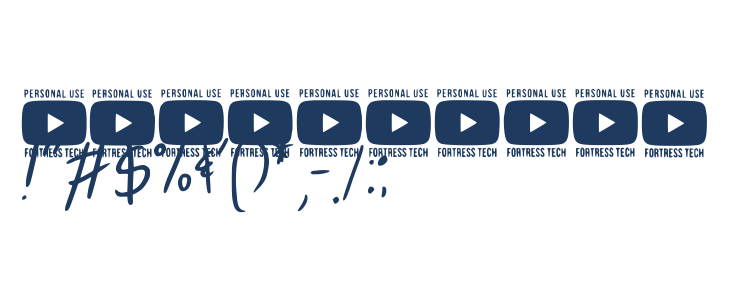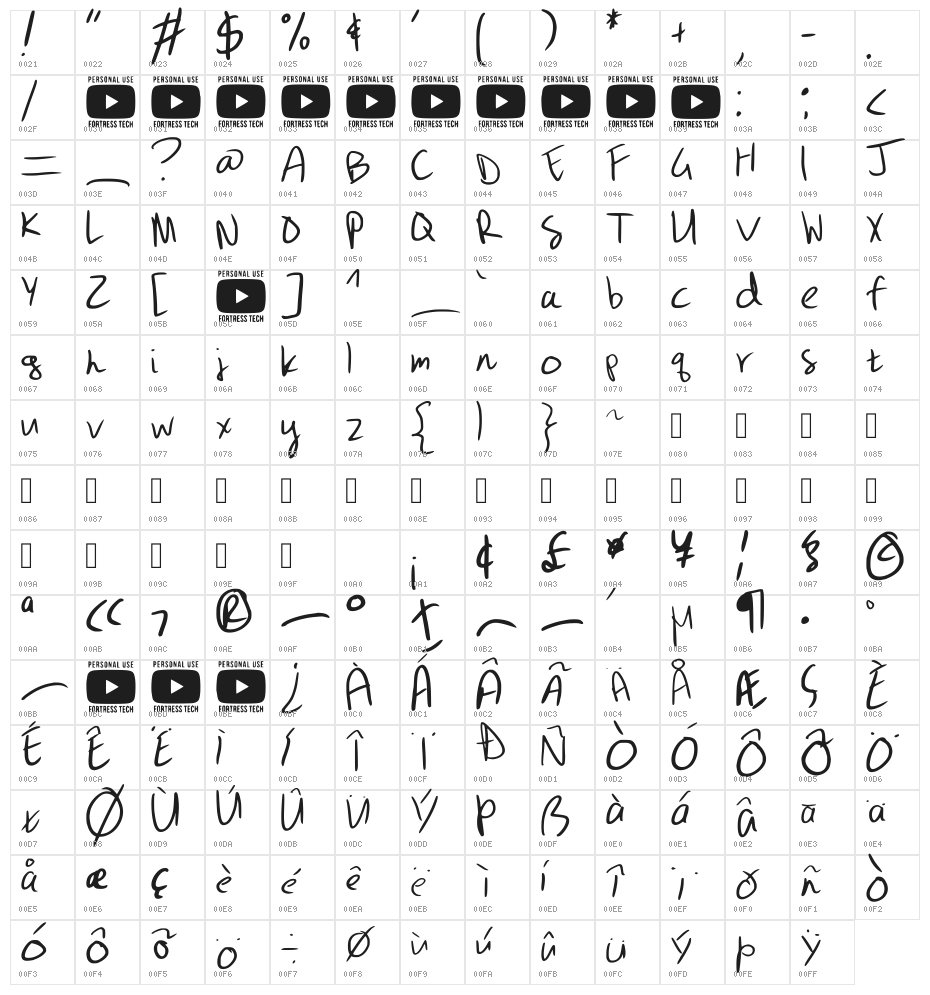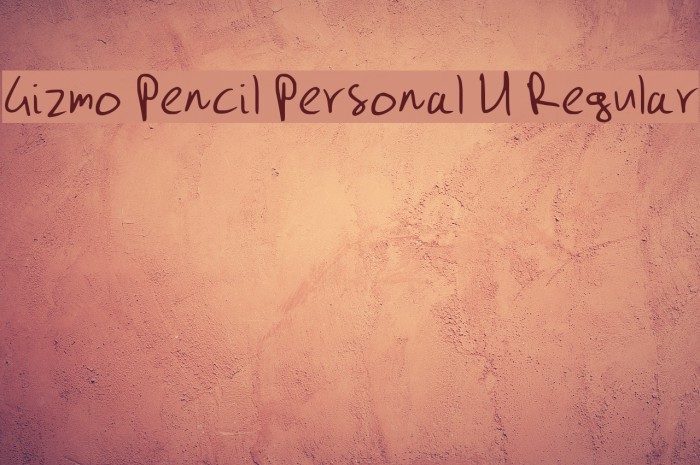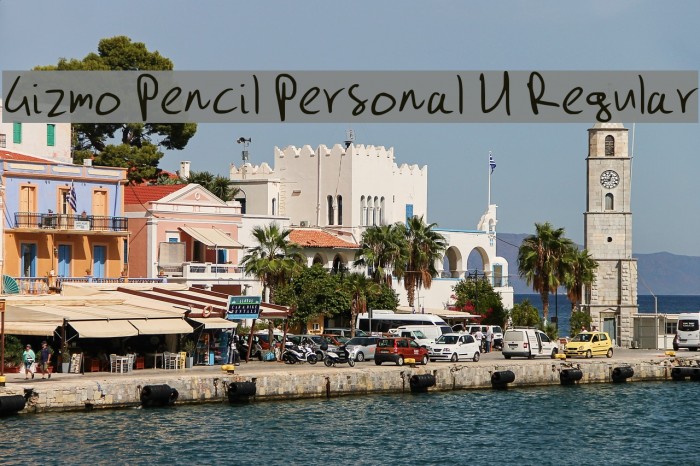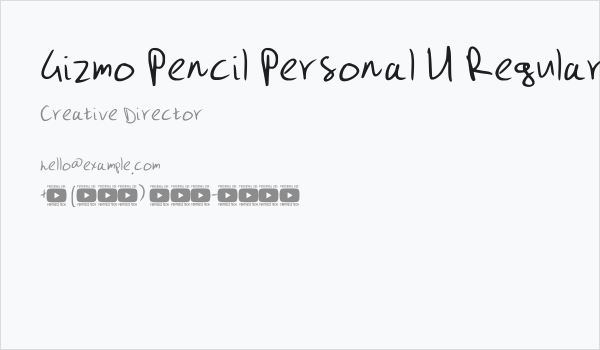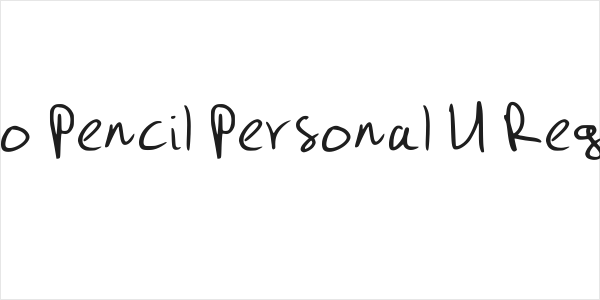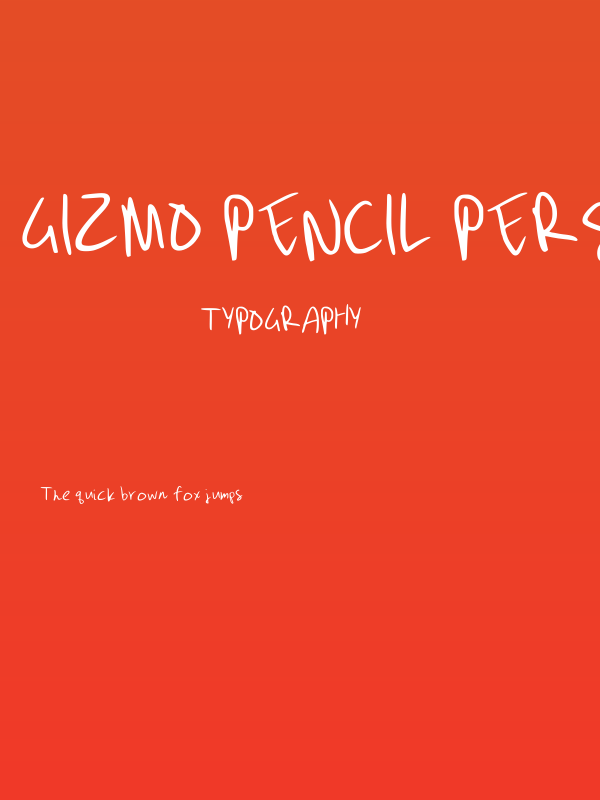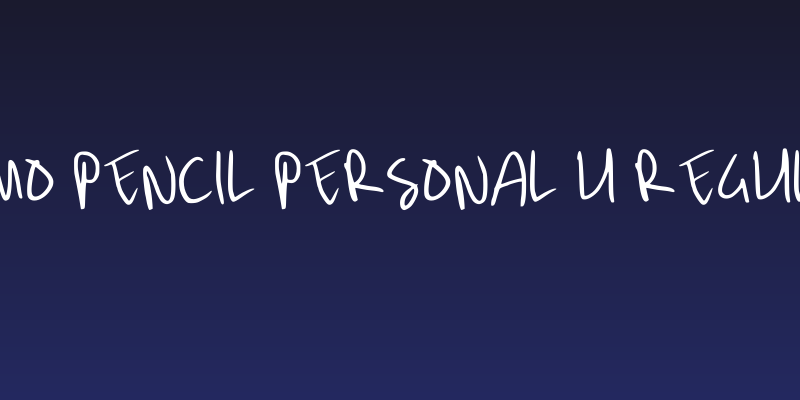
Gizmo Pencil Personal U Regular Font
Gizmo Pencil Personal U Regular Description
This font features a playful and casual handwritten style, characterized by its loose and informal strokes. The letters are slightly slanted, giving it a dynamic and energetic feel. The uppercase and lowercase letters maintain a consistent flow, with rounded edges and varying line thicknesses that add to its charm. The numerals and special characters are crafted with the same lively spirit, making it suitable for projects that require a personal touch. Its overall appearance is approachable and friendly, making it ideal for creative and informal designs.